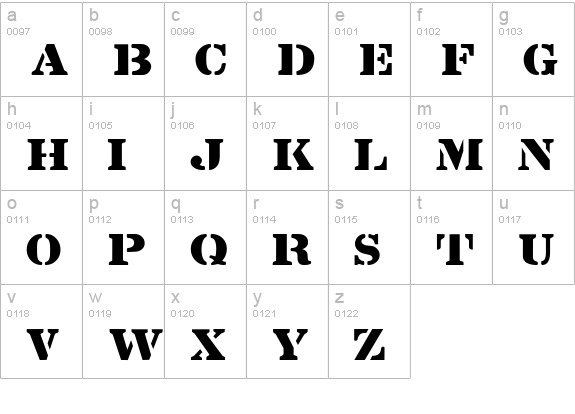
Lintsec Regular Font Details
Lintsec Regular is the standard, neutral variant in the Lintsec typeface family \xE2\x80\x94 well suited to general body text, paragraphs, and standard typographic work.
Lintsec Regular is a meticulously crafted font that effortlessly combines elegance and modernity. With its clean lines and well-balanced proportions, this typeface is perfect for a wide range of design projects. Whether you're creating a logo, designing a website, or working on a branding campaign, Lintsec Regular will add a touch of sophistication to your work. This font features a versatile and legible design that is easy on the eyes, making it suitable for both print and digital media. Its crisp and clear letterforms ensure optimal readability, even at small sizes. The attention to detail in Lintsec Regular is evident in its perfectly balanced curves and precise angles, resulting in a harmonious and visually pleasing aesthetic. One of the best things about Lintsec Regular is that it is available for free. You can easily download it from FontsMarket.com, a reputable source for high-quality fonts. This means that you can use Lintsec Regular in your personal and commercial projects without any restrictions. Whether you're a professional designer or a hobbyist, having access to a well-designed font like Lintsec Regular can greatly enhance the visual impact of your work. So why wait? Download Lintsec Regular today and discover its versatility and beauty. With this font in your toolkit, you'll be able to create stunning designs that leave a lasting impression.